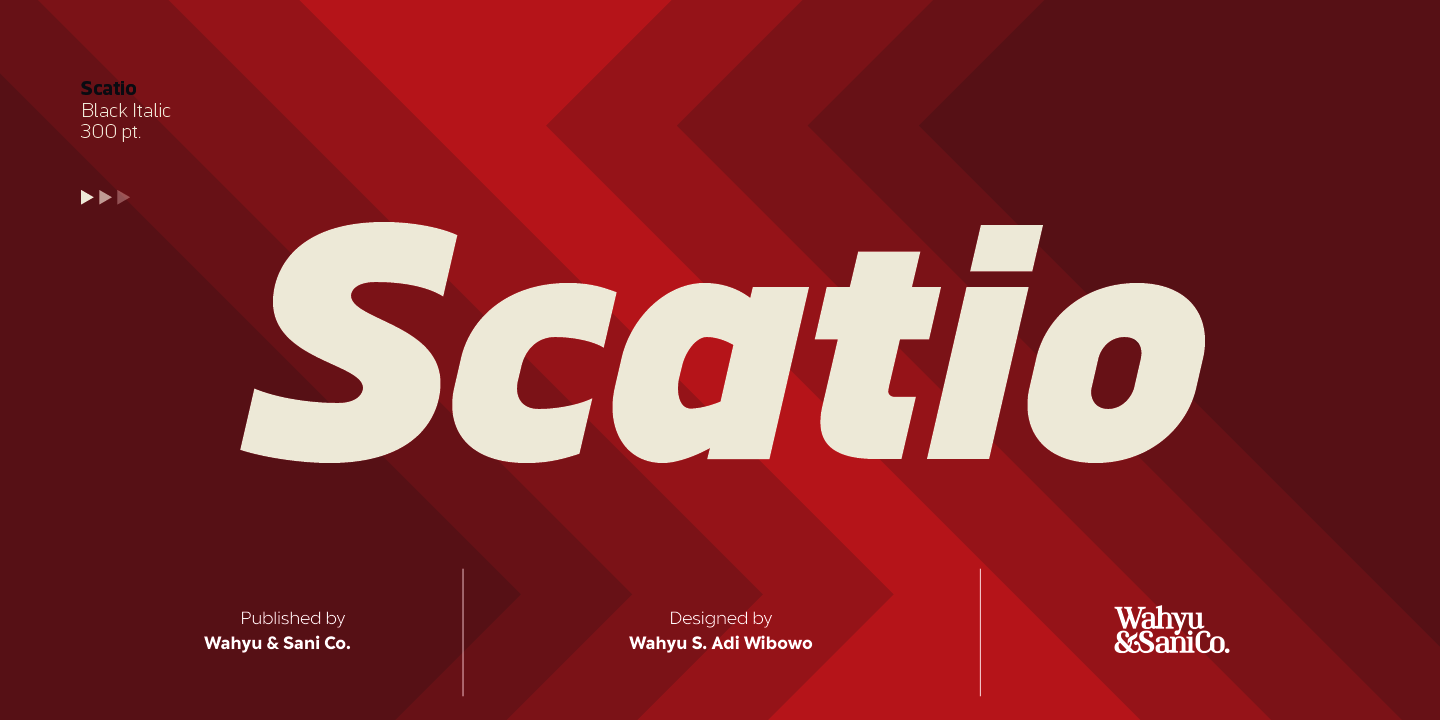
Scatio Font Free Download is a modern and minimalist sans-serif typeface designed for clarity, simplicity, and versatility. Its clean lines and geometric structure make it an excellent choice for branding, editorial layouts, digital interfaces, corporate presentations, and advertising materials that require a sleek and professional look.
The font’s balanced proportions and consistent letterforms ensure excellent readability across various sizes and mediums. Scatio’s contemporary and understated style allows it to adapt seamlessly to a wide range of creative and professional applications, providing a strong visual foundation for any project.
Scatio is a valuable asset for designers seeking a modern, clean, and highly versatile font to enhance the precision and professionalism of their creative work.